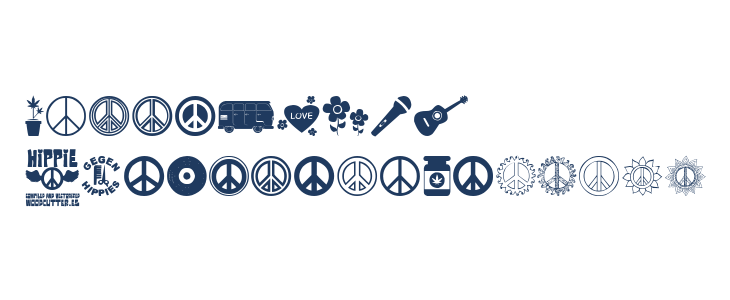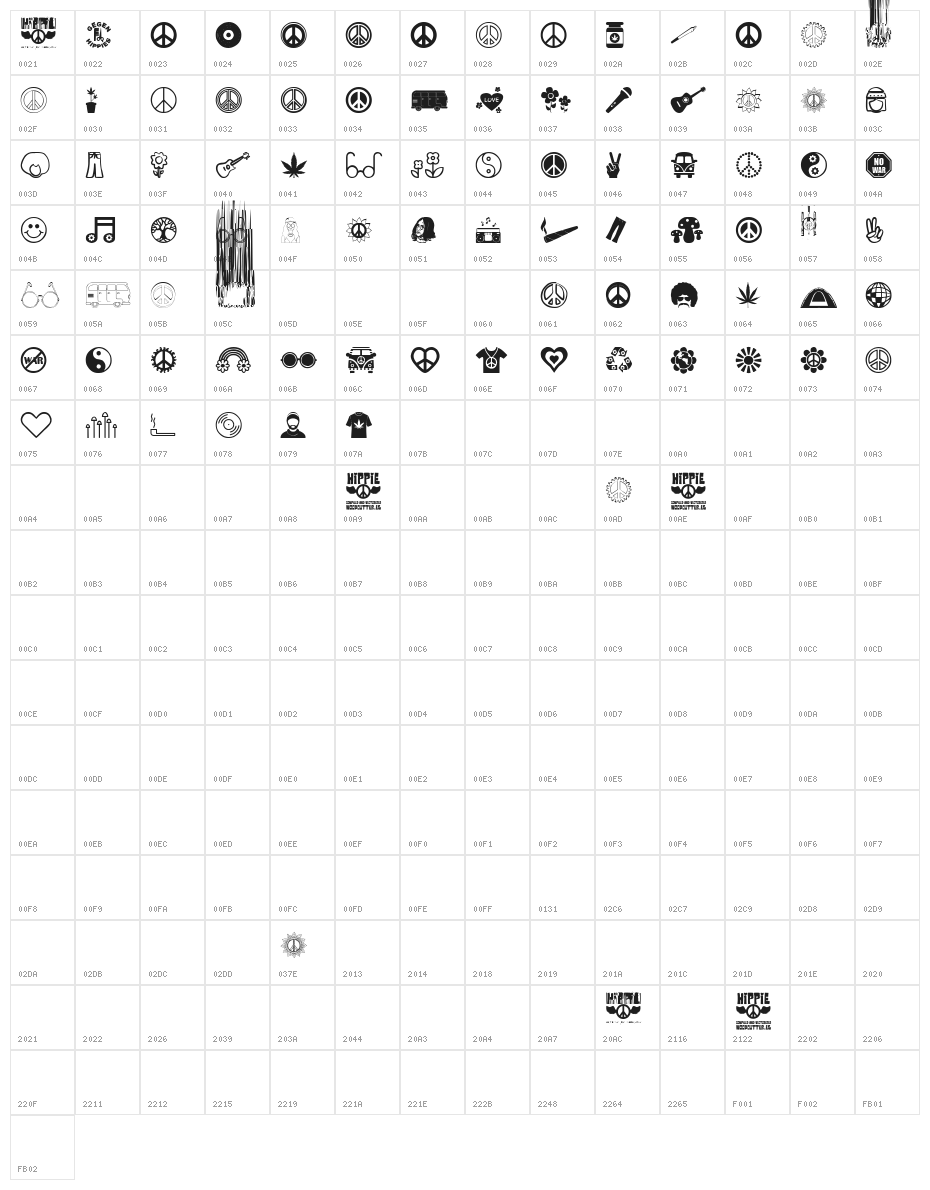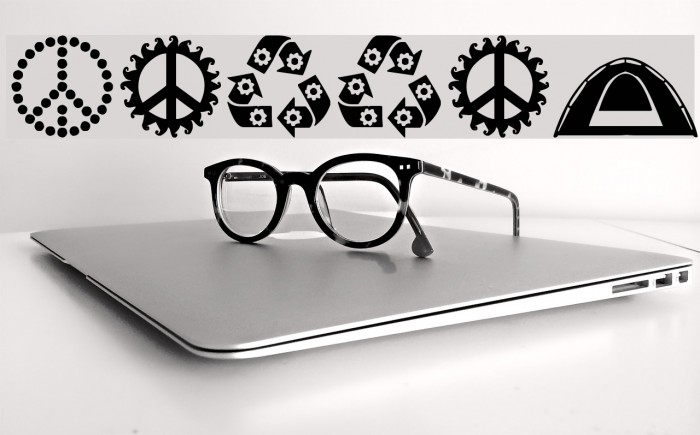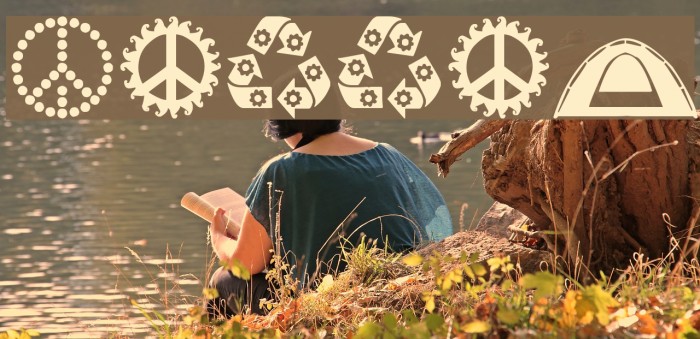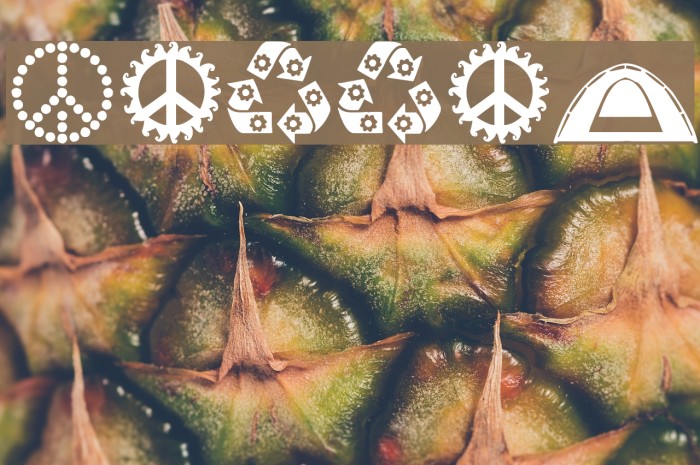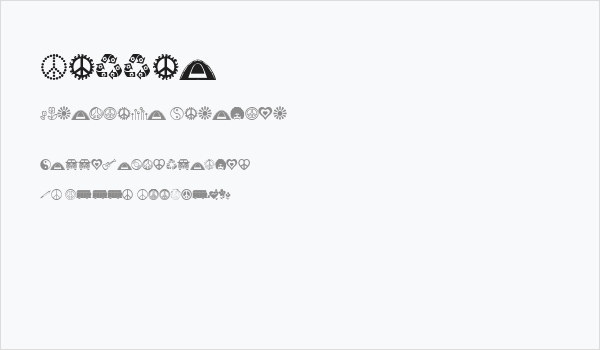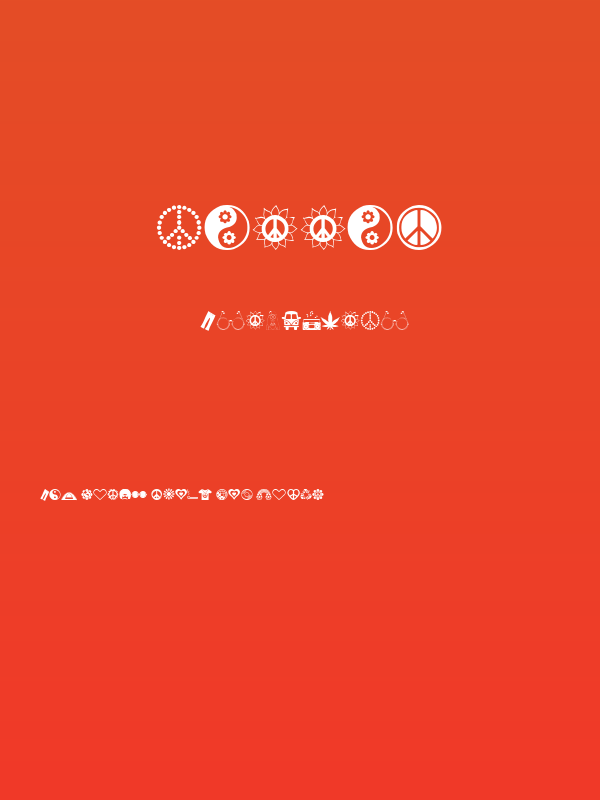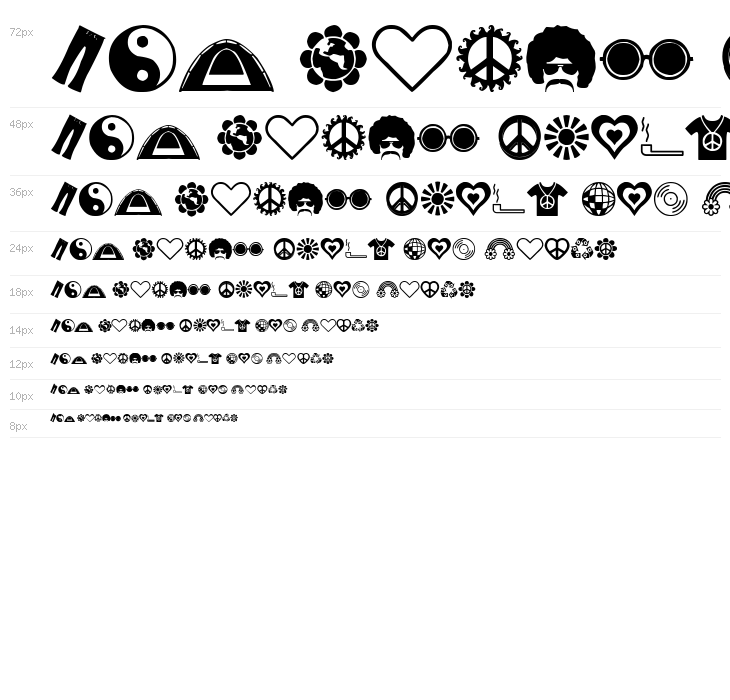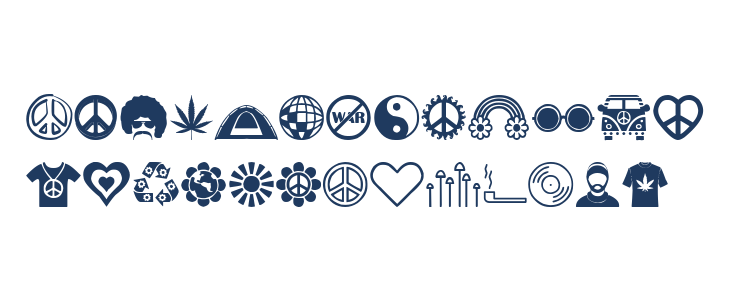
Hippie Font
A decorative dingbat font featuring a variety of hippie-themed icons such as peace signs, flowers, vans, musical instruments, and symbols associated with the 1960s counterculture. The icons are bold, highly stylized, and rendered in solid black, making them suitable for visual emphasis.
Overall StyleDecorative, Retro, Playful
Use CaseLogos, Headlines, Themed graphics, Decorative elements
Proposed ProjectsPosters, event flyers, t-shirt designs, social media graphics, stickers, themed invitations.